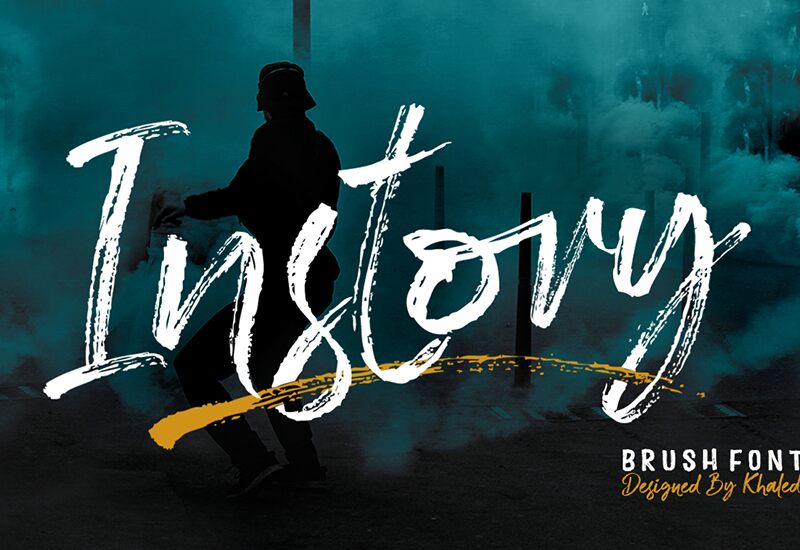
Instory Underlines, a captivating brush font by Akifatype Studio, adds a touch of artistic elegance to your projects. With its semi-light weight, this font effortlessly blends sophistication with creativity.
Its unique brush style creates an organic and handcrafted feel, perfect for designing eye-catching logos, branding materials, and social media posts. Whether you're working on fashion campaigns or crafting invitations for trendy events, Instory Underlines' underlines extension will make your text pop with flair.
Embrace this versatile typeface to infuse your designs with a distinct charm that leaves a lasting impression.